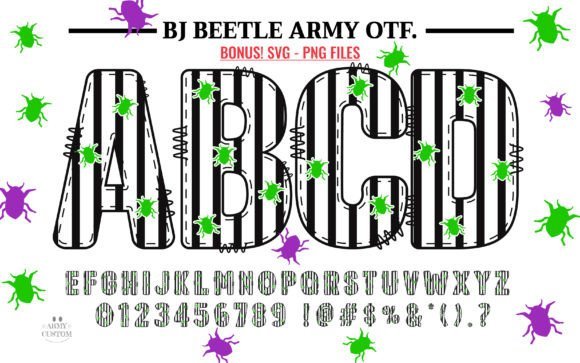
The Magic of Beetle Army Font: Elevate Your Creations
You know that feeling when you’re working on a project and suddenly, you stumble upon the perfect element that brings it all together? That’s what happens when you introduce the Beetle Army Font into your creative process. This enchanting Halloween Doodle Font Color is designed to add a touch of magic to your arts and crafts projects, scrapbooking endeavors, and even stationery and cards.
The Beetle Army Font is more than just a font – it’s a vibrant toolkit for designers who want to make their products stand out. With its unique charm and spellbinding design, it’s perfect for bloggers who want to capture attention with their blog banners and backgrounds, or interior designers who want to transform spaces with mesmerizing wall art.
Beetle Army Font Key Features
- Font Style: A unique, bold, and playful sans-serif font with a military theme.
- Unique Characteristics: The font features a distinctive beetle-inspired design, with bold lines and geometric shapes, giving it a rugged and edgy feel.
Beetle Army Font Review
Overall, I was excited to dive into the Beetle Army Font. At first glance, it’s a bold and quirky choice that’s sure to grab attention. Here’s what I liked: ✨
- The font’s unique style is undeniably eye-catching and memorable.
- It’s perfect for projects that require a bold, energetic feel.
- The Beetle Army Font is well-suited for headings and titles, where its boldness can shine.
However, I did encounter some limitations: ⚠️
- The font can be overwhelming in large quantities or when used extensively in body text.
- Some characters may appear slightly rough or irregular, which could be a concern for precise typography.
- The Beetle Army Font may not be suitable for formal or professional projects, as its edgy style can come across as unrefined.
In conclusion, the Beetle Army Font is a great choice for projects that require a bold, attention-grabbing look. While it may have some limitations, its unique style and energetic feel make it a great option for designers looking to add some personality to their work.
Tips for Getting the Most Out of Beetle Army Font
Use the Beetle Army Font to add a bold, edgy touch to your designs. It’s perfect for punk rock-inspired designs, sci-fi themes, and more. Experiment with different font sizes and styles to create a unique look.
The Beetle Army Font is ideal for:
- Punk rock-inspired designs
- Sci-fi themes
- Edgy, bold typography
- Post-apocalyptic designs
Alternatives to Beetle Army Font
Rockwell Font
The Rockwell Font is a serif font known for its strong and sturdy appearance, making it ideal for use in titles and headings. It has a more classic and timeless feel compared to the Beetle Army Font, which has a more distressed and vintage look. Rockwell Font is suitable for use in designs that require a sense of elegance and sophistication.
Impact Font
The Impact Font is a sans-serif font that is highly legible and bold. It is often used for titles and headings in designs that require a strong and attention-grabbing effect. Impact Font has a more geometric and modern appearance compared to the Beetle Army Font, which has a more organic and distressed feel. Impact Font is suitable for use in designs that require a sense of energy and dynamism.
Bebas Neue Font
The Bebas Neue Font is a sans-serif font that is highly legible and has a strong, modern appearance. It is often used for titles and headings in designs that require a sense of sophistication and elegance. Bebas Neue Font has a more clean and minimalist feel compared to the Beetle Army Font, which has a more distressed and vintage look. Bebas Neue Font is suitable for use in designs that require a sense of professionalism and authority.